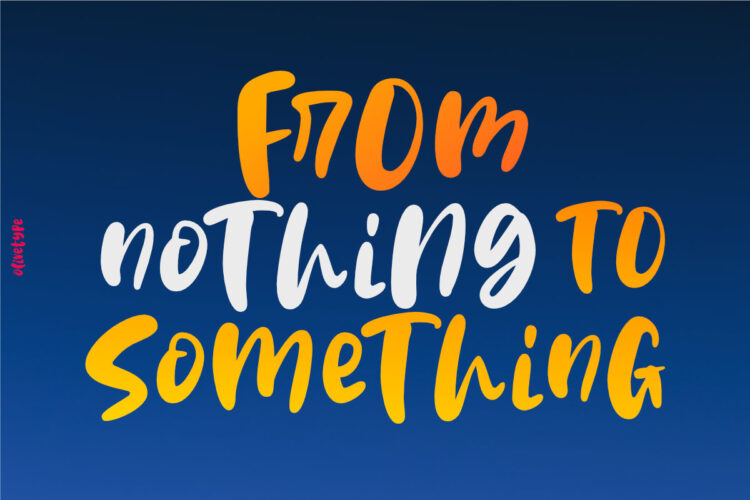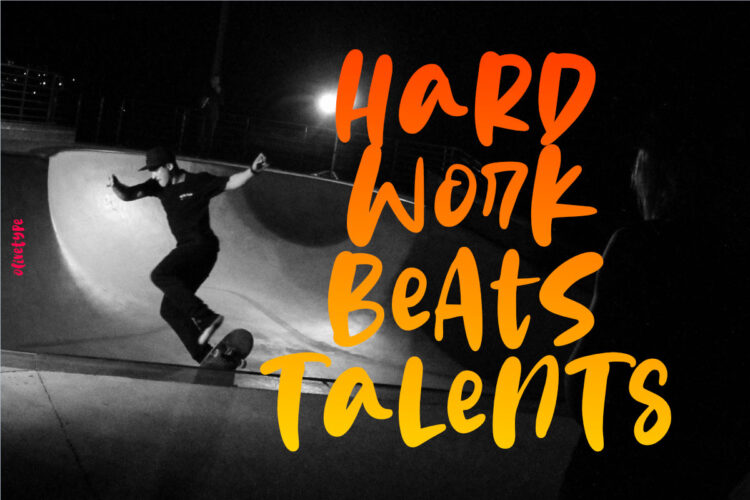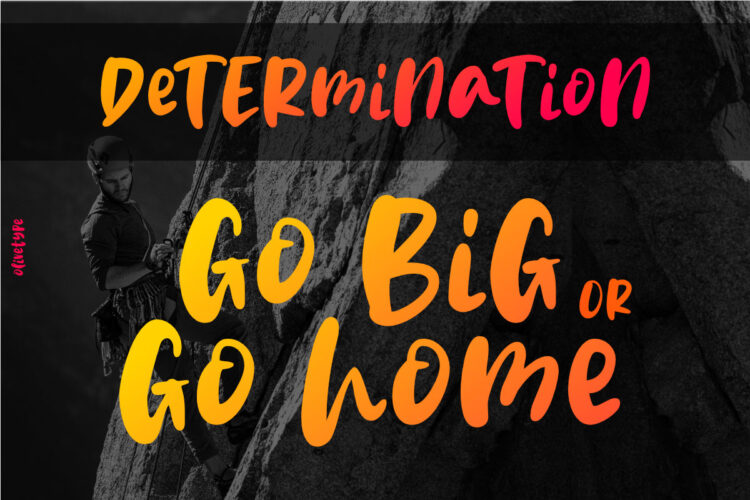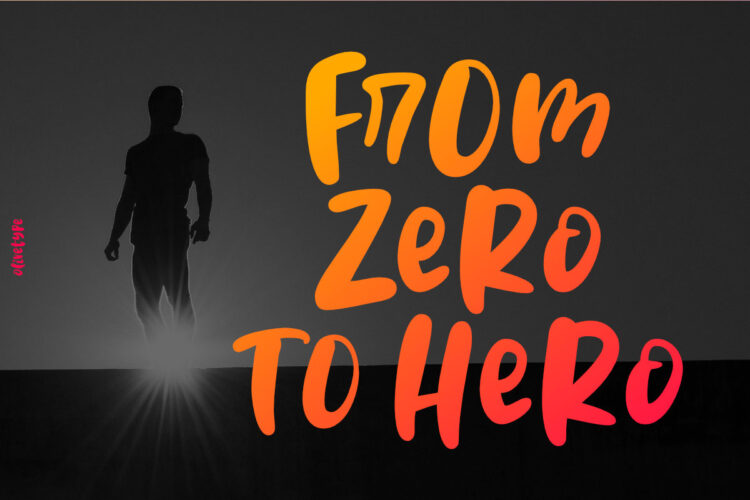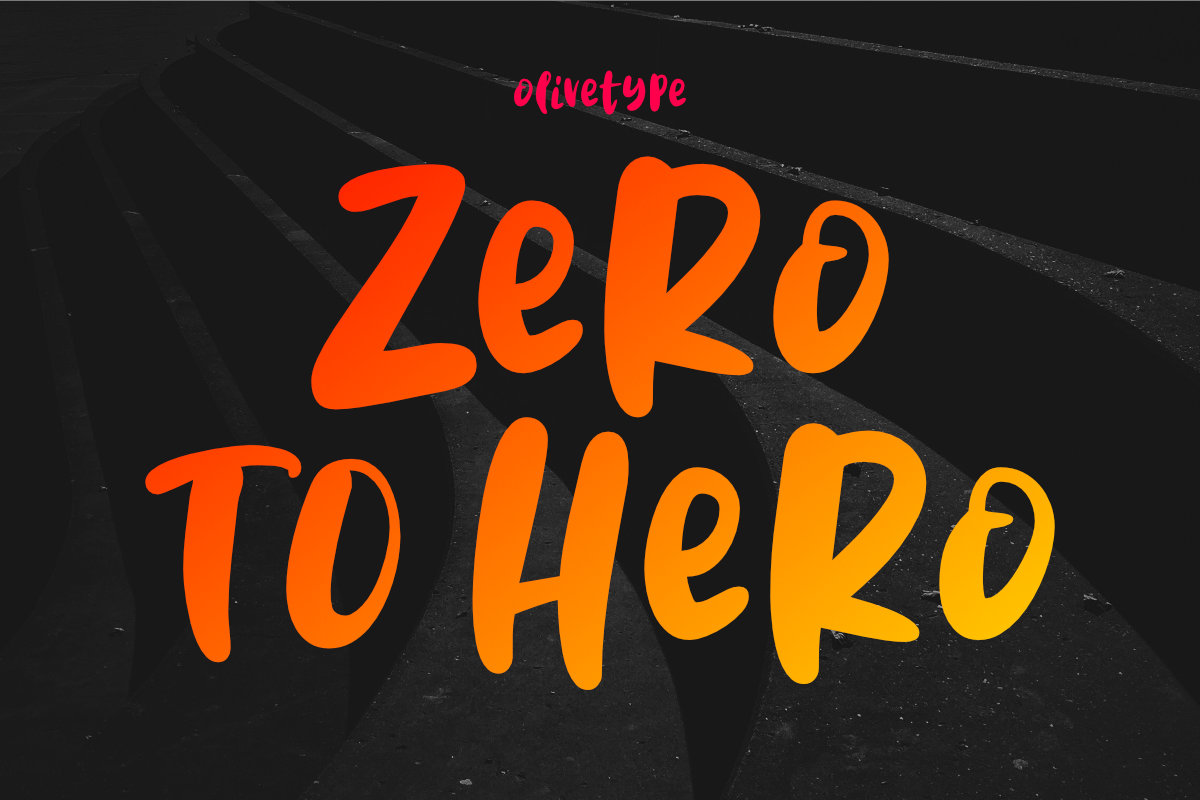
Zero To Hero is a bold handwritten font, carefully handcrafted to become a true favorite. Its casual charm makes it appear wonderfully down-to-earth, readable, and ultimately, incredibly versatile. Zero To Hero will look outstanding in any context, whether it’s being used on busy backgrounds or as a standalone headline!
This font is supporting Multi-Languages, which include: Afrikaans Albanian Catalan Danish Dutch English Estonian Finnish French German Italian Norwegian Portuguese Spanish Swedish Zulu.